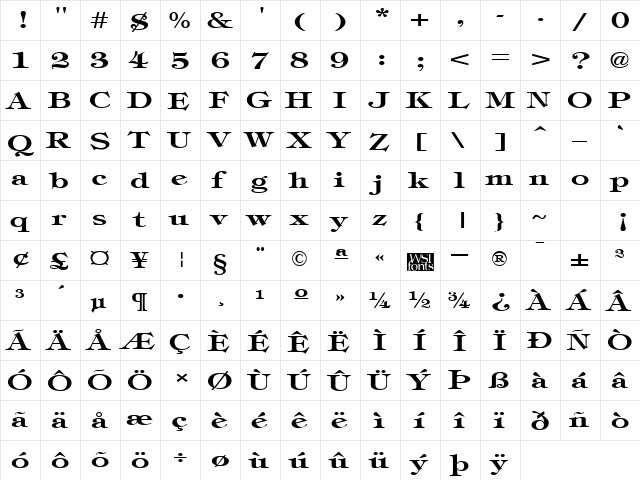
TimbrelBroad Bold Font Preview
TimbrelBroad Bold
Design Context for TimbrelBroad Typeface
TimbrelBroad offers clean, dependable letterforms without strong stylistic allegiance, making it a practical choice for designers who need flexibility. The heavy weight commands attention and anchors typographic hierarchies.